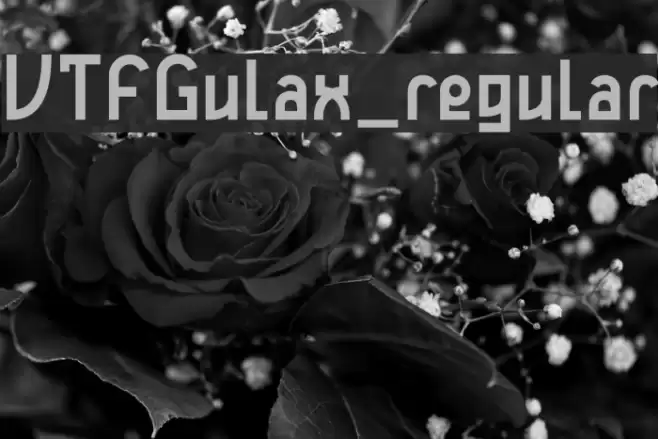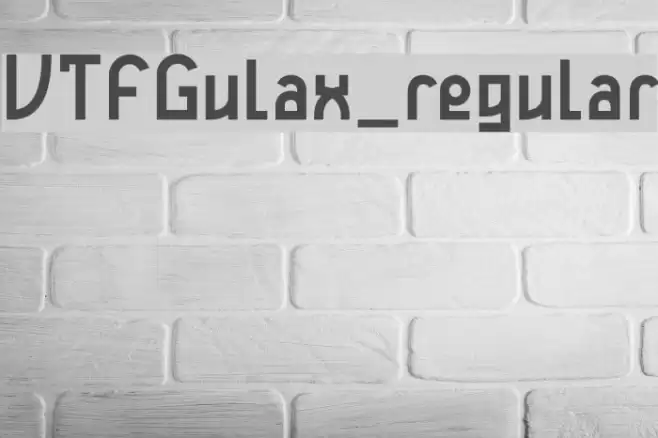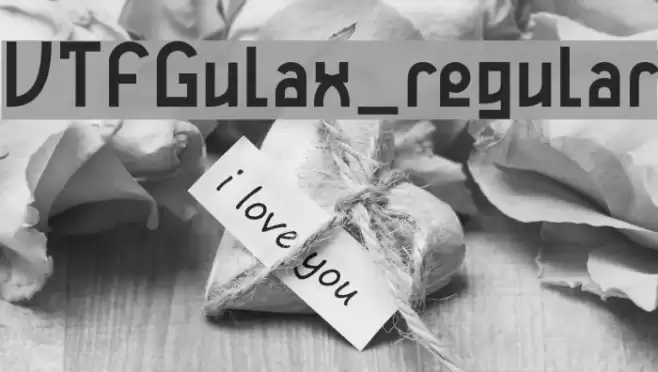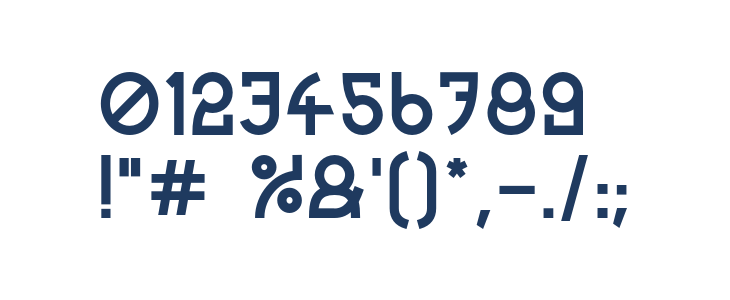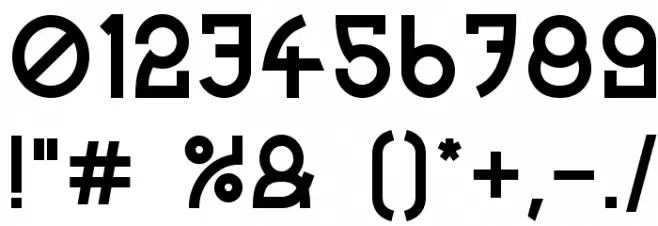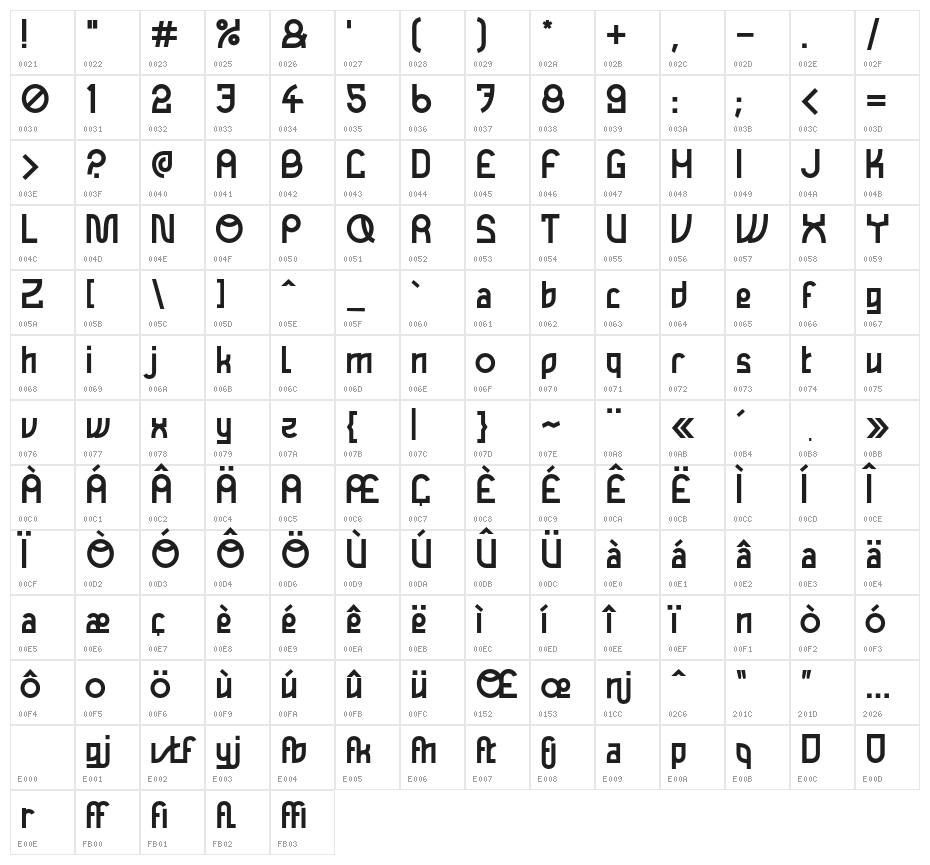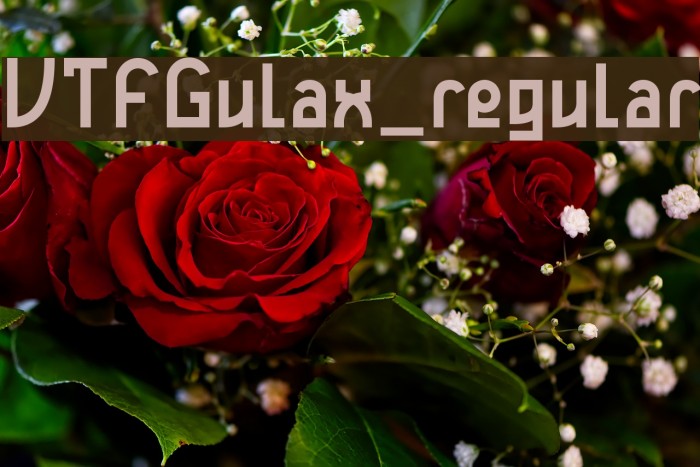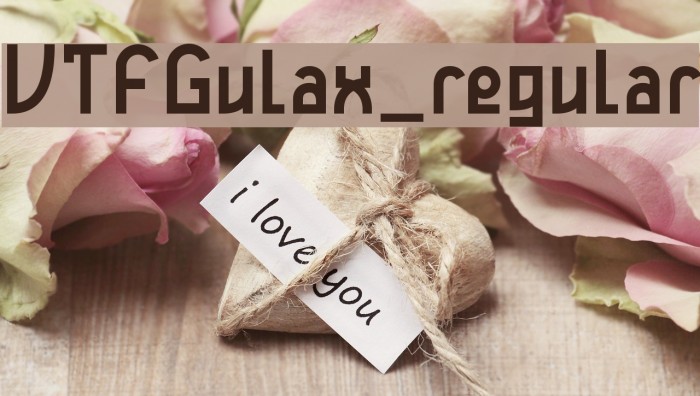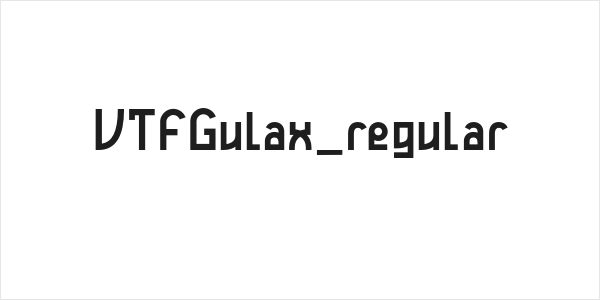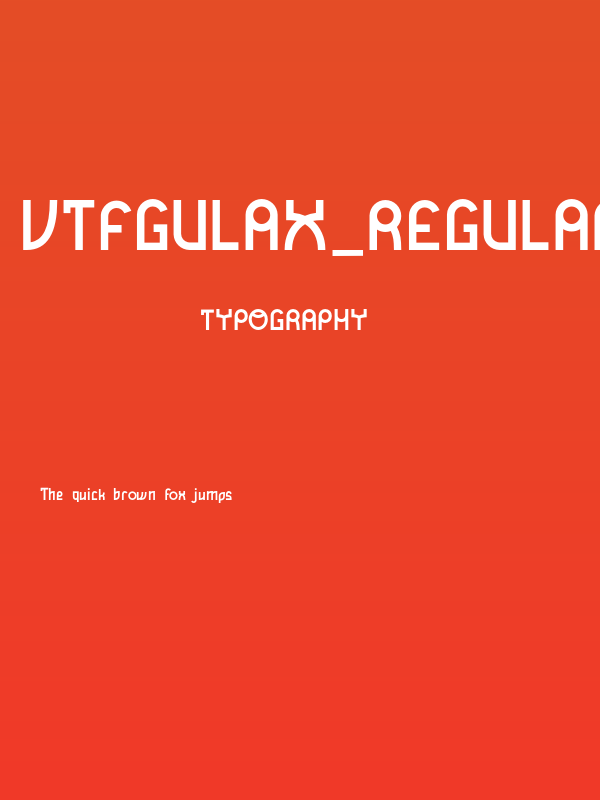
VTFGulax_regular Font
VTFGulax_regular Description
This font features a bold and geometric design with a modern twist. The characters are constructed with clean, straight lines and sharp angles, giving it a futuristic and tech-inspired appearance. The uppercase letters are particularly striking, with unique shapes that make them stand out. The lowercase letters maintain the same geometric style, ensuring consistency across the typeface. Numbers and special characters are designed to match the overall aesthetic, providing a cohesive look. The font's boldness and distinct style make it suitable for attention-grabbing headlines and display purposes.
A bold, geometric font with a modern, tech-inspired design from Uncategorized fonts.